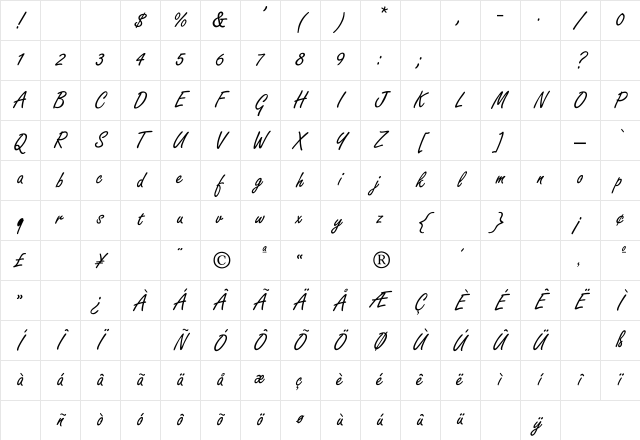
Barbados Regular
Design Context for Barbados
Barbados is a composed and adaptable typeface that performs quietly and consistently across a wide range of design contexts.
Pro Tip: Use Barbados in both headline and body roles to test its range before committing to a single application.